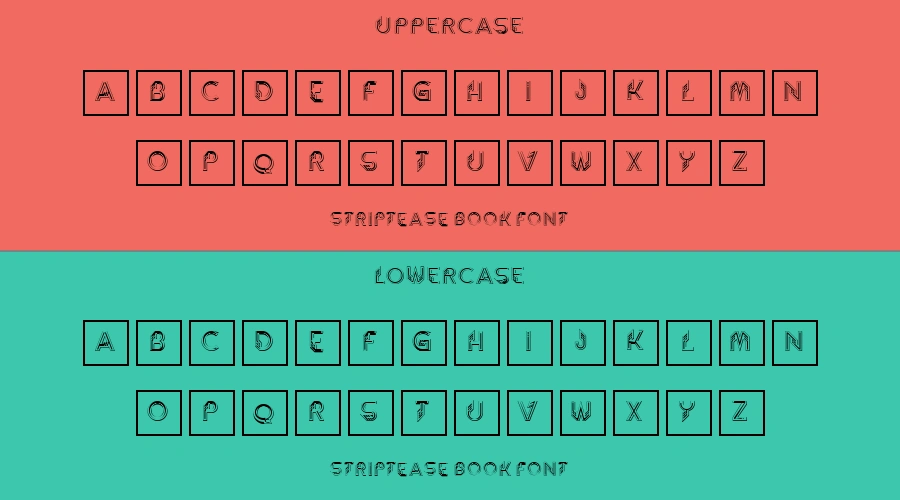
About Striptease Book Font
Designed with precision, Striptease Book Font merges tapered strokes with versatility in every character. This versatility makes it particularly effective for annual reports, where precision and brand power directly impact communication quality. Each letterform demonstrates meticulous craftsmanship.
Technical excellence shines through elements like high x-height and dingbat elements, enhancing typographic versatility. In hero imagery settings, Striptease Book Font proves its worth through superior small text rendering. The thoughtful execution of joint construction and professional recognition ensures professional results.